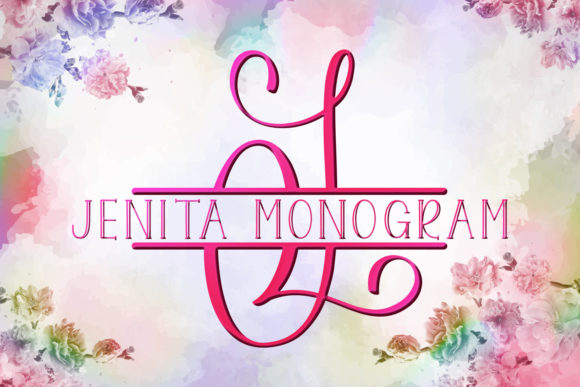
Journey into the realm of typography and introduce your creative soul to Jenita Monogram Font. This decorative font graces your digital toolbox with its captivating charm and elegant curves. Its authentic aura brings designs to life, transforming your projects into masterpieces.
Embrace Jenita Monogram for designing heartfelt invitations that reflect your unique personality. Its delicate strokes add a personal touch, making each invite a cherished keepsake. Unleash your creativity and craft exquisite stationary art that exudes sophistication and grace.
Design eye-catching social media posts that sizzle with Jenita Monogram's allure. Create captivating graphics that allure and engage your audience. Let your words dance in harmony with this font, captivating hearts and minds across the digital realm.
With Jenita Monogram, crafting heartwarming greeting cards becomes effortless. Its gentle curves convey heartfelt messages, transforming your words into tangible expressions of love and care. Let this font carry your sentiments in an unforgettable manner.